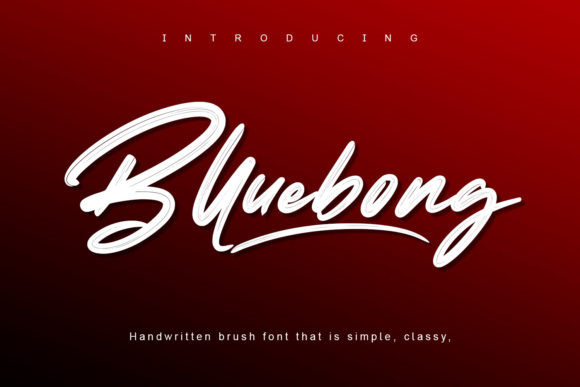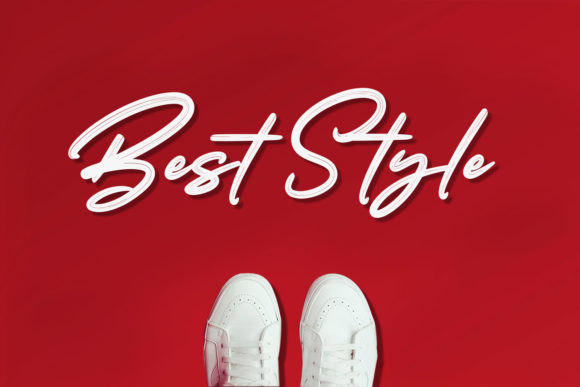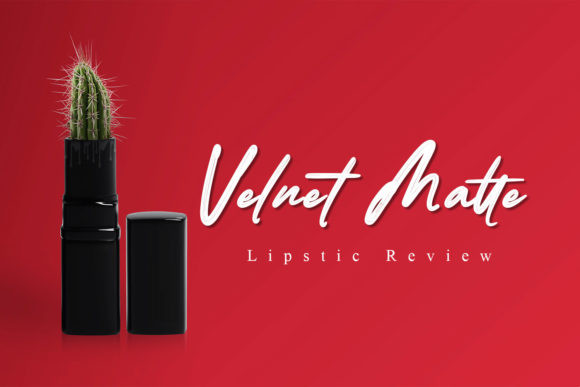
Blluebong Font
Blluebong is a natural handwritten brush font. No matter the topic, this font will be an incredibly asset to your fonts’ library, as it has the potential to elevate any creation.